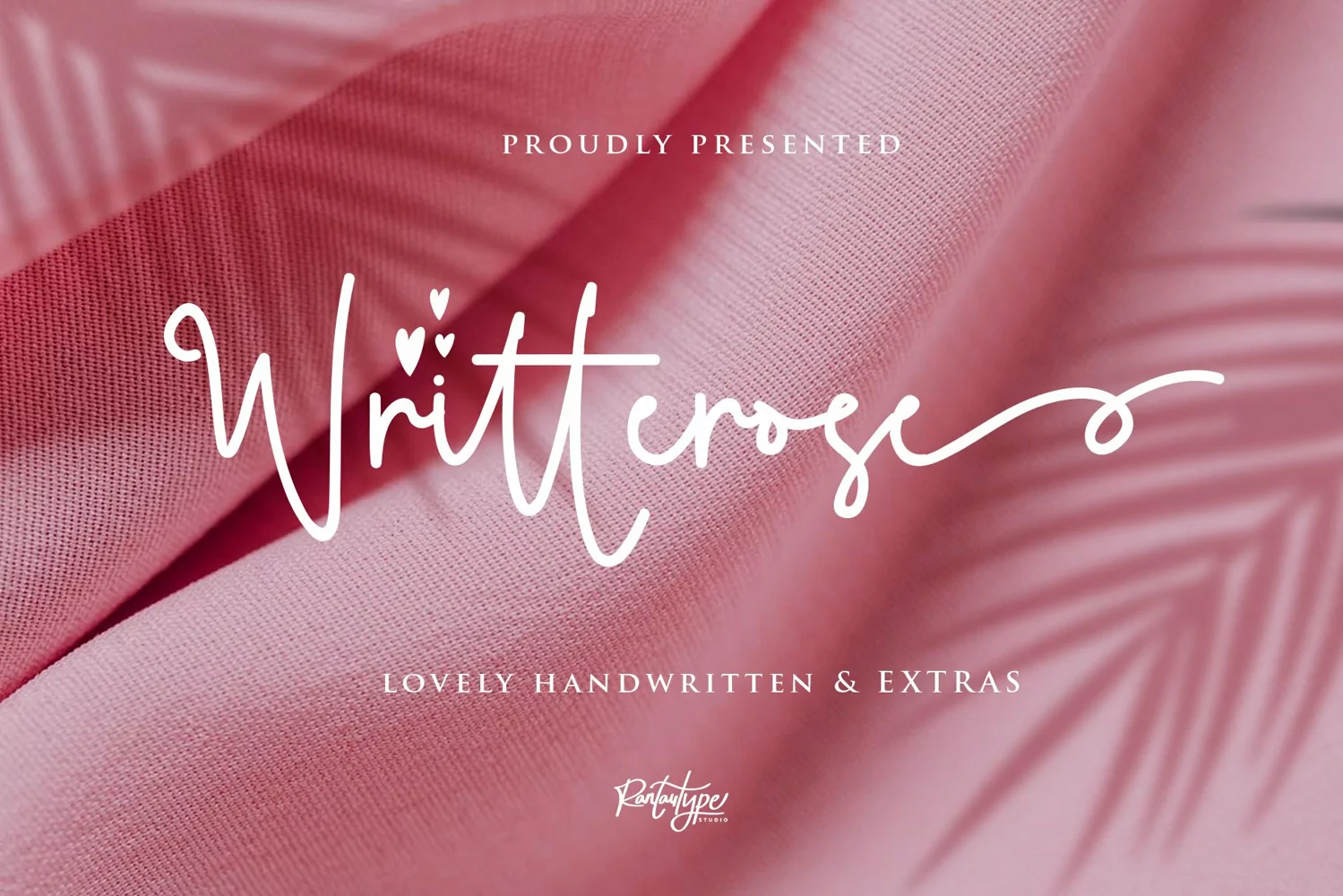
Writterose
Proudly present Another lovingly font “writterose” handwritten font.
I took this name from the writter and rose" which can be interpreted beautiful. we keep this font looks elegant, classy, readable, stylish, catchy and easy to use. writterose is the great choice for watermark on photography, signature or signature logo design, quotes, album cover, business card and many other design project. writterose is here to make your work to high level!!!
Feature:
• Standart Letter: A – Z and a – z
• Number & Functional
• Alternate